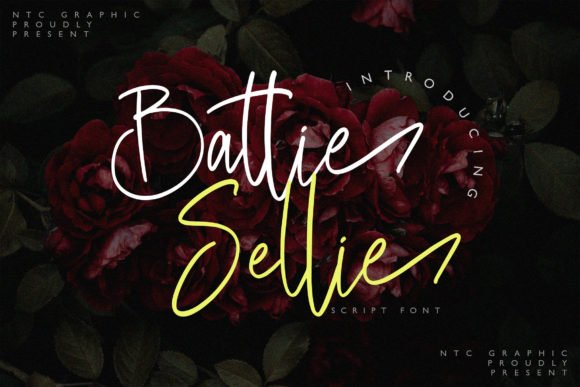
Have you ever sat down at your desk, staring blankly at a blank sheet of paper, waiting for inspiration to strike? For designers, this moment is all too familiar. But what if we told you that the perfect font was just a click away? Introducing Battie Sellie Font, a delicate and charming script font that’s sure to bring your next project to life.
This versatile font is perfect for creating stunning wedding invitations, beautiful stationery, and eye-catching social media posts. Its adaptability makes it a valuable asset for designers looking to add a touch of elegance to their work. Whether you’re a seasoned pro or just starting out, Battie Sellie Font is a must-have for any creative project. With its sweet and delicate style, you’ll be falling in love with this font in no time.
Battie Sellie Font Key Features
- Font Family: Battie Sellie is a handwritten script font designed to add a touch of elegance and sophistication to any design.
- Font Size: Available in 4 different font sizes: 100, 200, 300, and 400, allowing for flexibility in design applications.
- Resolution: Supports high-resolution designs, making it suitable for print and digital applications.
- Unique Characteristics: Features a unique blend of modern and vintage elements, with intricate details and flourishes that add a touch of whimsy to designs.
- Language Support: Supports a wide range of languages, including English, Spanish, French, German, Italian, and many more.
Battie Sellie Font Review
I recently had the chance to work with the Battie Sellie Font, and I must say it’s been a wild ride. ✨ The font’s playful and whimsical feel immediately caught my attention, and I love how it can add a touch of personality to any design project. ✨ The bold and expressive lines make it perfect for titles and headings, and the subtle imperfections give it a hand-drawn feel that’s hard to replicate with more traditional fonts.
One of the things I appreciate about Battie Sellie is its versatility. ✨ It can be used for everything from children’s books to advertisements, and it’s even suitable for digital interfaces. However, I do think it’s best used in large formats or as a focal point, as the font can be a bit overwhelming in smaller sizes or when used extensively throughout a design.
What works well:✨
- Playful and whimsical feel
- Perfect for titles and headings
- Subtle imperfections give it a hand-drawn feel
- Highly versatile
- Can be overwhelming in smaller sizes
- Best used in large formats or as a focal point
Overall, I think the Battie Sellie Font is a great addition to any designer’s toolkit. While it may have some limitations, its unique personality and versatility make it a great choice for projects that need a bit of flair.
Battie Sellie font is ideal for creating playful and whimsical designs. Use it for:
- Children’s book illustrations.
- Party invitations and decorations.
- Food and drink labels.
- Quirky social media graphics.
Remember to adjust font size and color to balance with other design elements.
Alternatives to Battie Sellie Font for Designers
Alex Brush is a beautiful, elegant script font perfect for creating a sophisticated and high-end feel in your designs. It features a flowing, handwritten style that is ideal for use in logos, invitations, and other applications where a touch of luxury is desired.
Comparison to Battie Sellie Font: Alex Brush has a more refined and polished look compared to Battie Sellie Font, making it suitable for high-end designs. However, Battie Sellie Font has a more unique and quirky charm that may be desirable for certain projects.
Great Vibes is a modern, cursive script font that is perfect for creating a fun and lively atmosphere in your designs. It features a relaxed, handwritten style that is ideal for use in posters, advertisements, and other applications where a carefree vibe is desired.
Comparison to Battie Sellie Font: Great Vibes has a more playful and energetic feel compared to Battie Sellie Font, making it suitable for projects that require a fun and youthful tone. However, Battie Sellie Font has a more sophisticated and elegant look that may be desirable for certain designs.